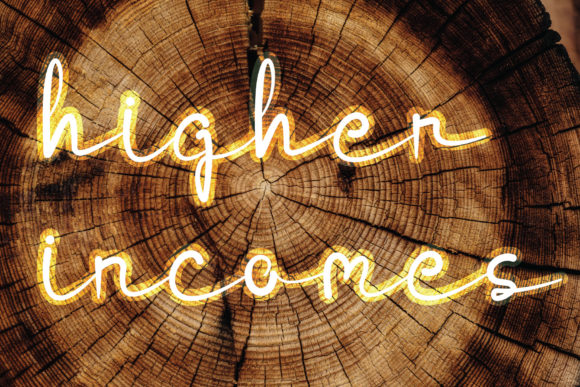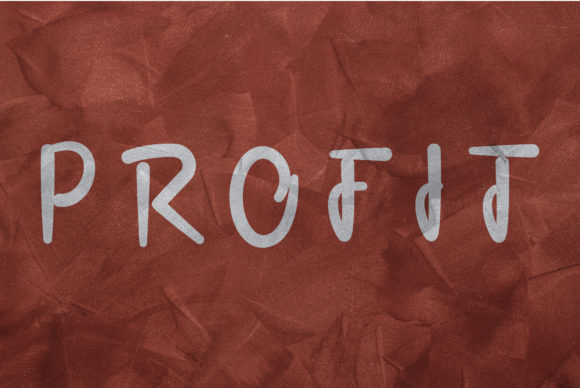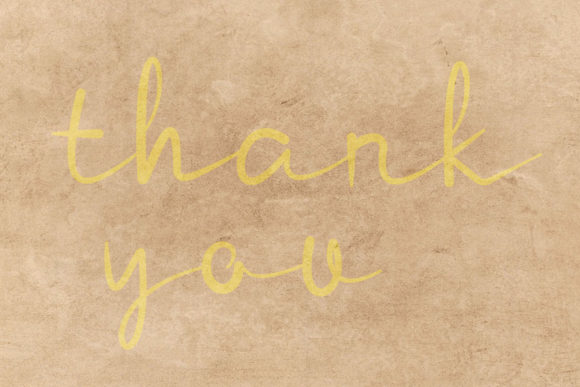
The Perfect Brushstroke: A Deep Dive into the Lovely Done Font
I’ll never forget the time I was working on a branding project for a trendy new coffee shop. I had the logo concept nailed, but I was struggling to find the right font to complement it. That’s when I stumbled upon the Done font – a beautiful, relaxed brushed script that instantly elevated my design. If you’re a designer, crafter, or creative hobbyist looking for a versatile font to add to your arsenal, you’re in luck! In this article, we’ll explore the wonderful world of Done font and how to make the most of its features.
An Honest Review of Done Font
So, what makes Done font so special? Let’s dive into the good stuff and a few quirks to keep in mind.
What I Love About Done Font ✨
- 💫 Effortless elegance: Done font exudes a carefree, hand-brushed vibe that’s perfect for informal designs, but also surprisingly works well in formal contexts.
- ✅ Versatility: Pair it with bold geometrics or delicate florals – Done font adapts seamlessly to a wide range of design styles.
- 🎨 Creative freedom: With its extensive OpenType features and glyphs, you can experiment with various stylistic alternates to make your text truly unique.
- ⚠️ Legibility at small sizes: While Done font looks stunning at larger sizes, it may become tricky to read when scaled down. Use it judiciously for headlines or short paragraphs.
- ⚠️ Limited use in body text: Due to its script nature, Done font might not be the best choice for lengthy passages of text. Stick to shorter text snippets or use it as an accent font.
The Story Behind Done Font
While the origins of Done font might be shrouded in mystery, it’s clear that its designer aimed to create a versatile, approachable script font that would bring a touch of warmth to any design. Whether inspired by hand-lettered signs or digital typography, Done font’s relaxed charm has captured the hearts of designers and crafters alike.
| Font Name | Done Font |
| Author | Designvector10 |
Q: What type of projects is Done font best suited for?
A: Done font shines in a variety of projects, from informal designs like social media graphics and party invitations to more formal applications like branding, packaging, and editorial design.